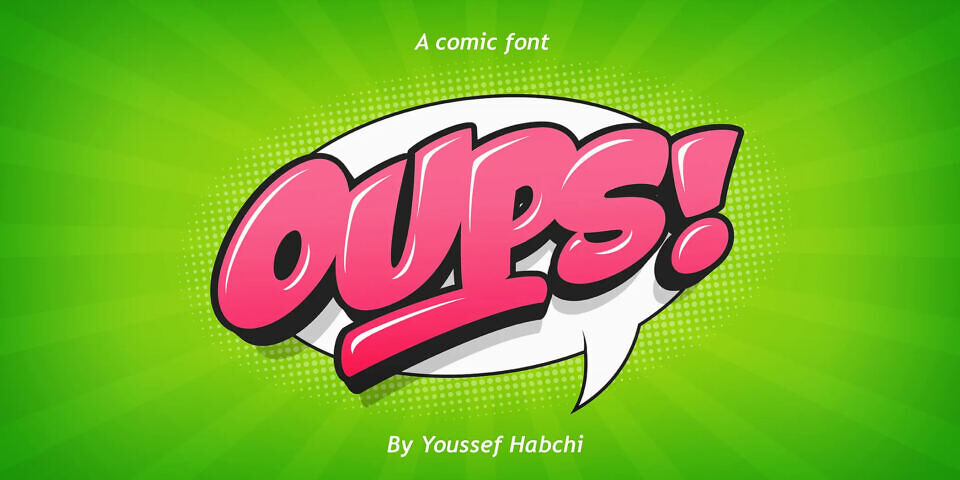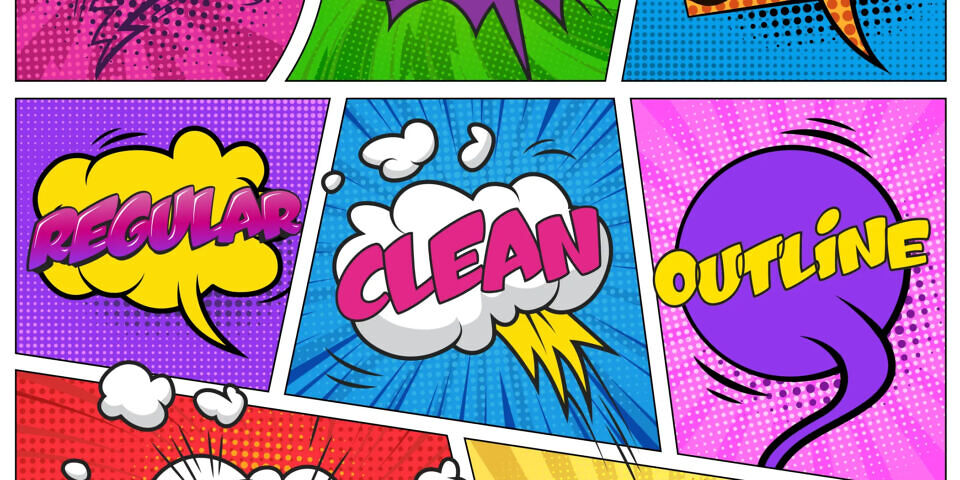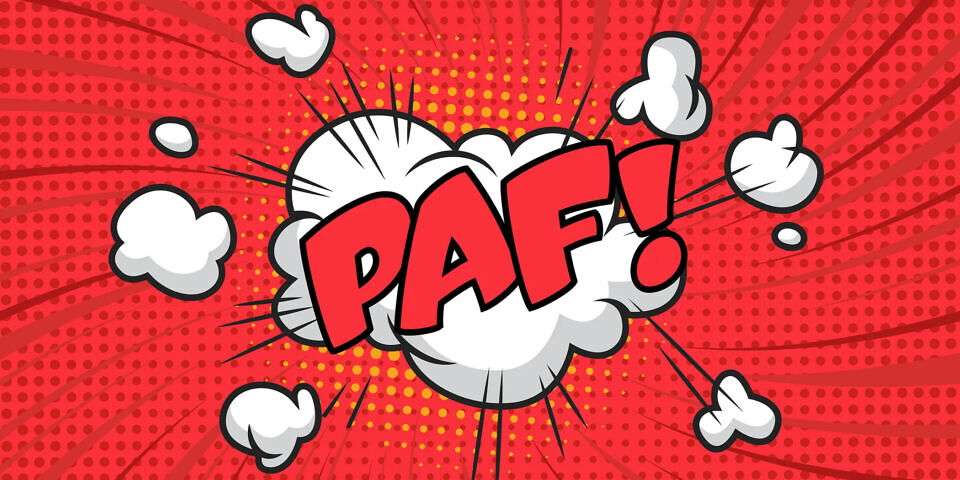
Designed by Youssef Habchi, Oups is a playful, comic-style typeface that brings a sense of lighthearted energy to any project. This versatile font family includes three distinct variations—standard, clean, and outline—allowing for creative flexibility in design work.
Its uneven strokes and organic shapes create a fun, spontaneous look, making it perfect for children’s designs, greeting cards, posters, branding, social media graphics, and creative projects.